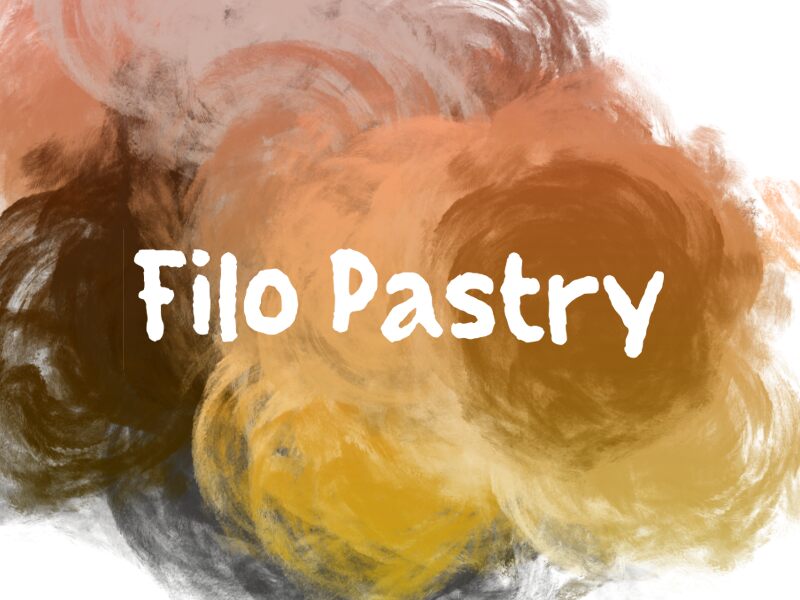
Filo Pastry
Filo Pastry, crafted by the designer wep, is a script font that carries a distinctive edge with its trash style. This font embodies an artistic chaos, reminiscent of a raw and unrefined aesthetic that's both striking and expressive. The characters possess an organic irregularity, akin to hasty brush strokes or ink spills that suggest motion and spontaneity.
Suitable for creative projects that call for a touch of grunge or edginess, Filo Pastry would be at home on album covers, urban fashion labels, or any design space that embraces a rebellious spirit. Its bold character makes it ideal for impactful headlines or statements where the type itself becomes part of the visual intrigue.